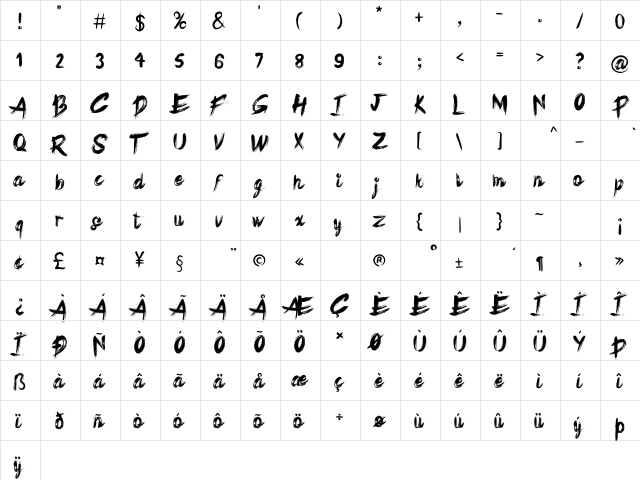
Key Virtue Regular
| Foundry | SushiHueDesign |
| Designer | SushiHueDesign |
Design Context for Key Virtue Typeface
Key Virtue is a composed and adaptable typeface that performs quietly and consistently across a wide range of design contexts.